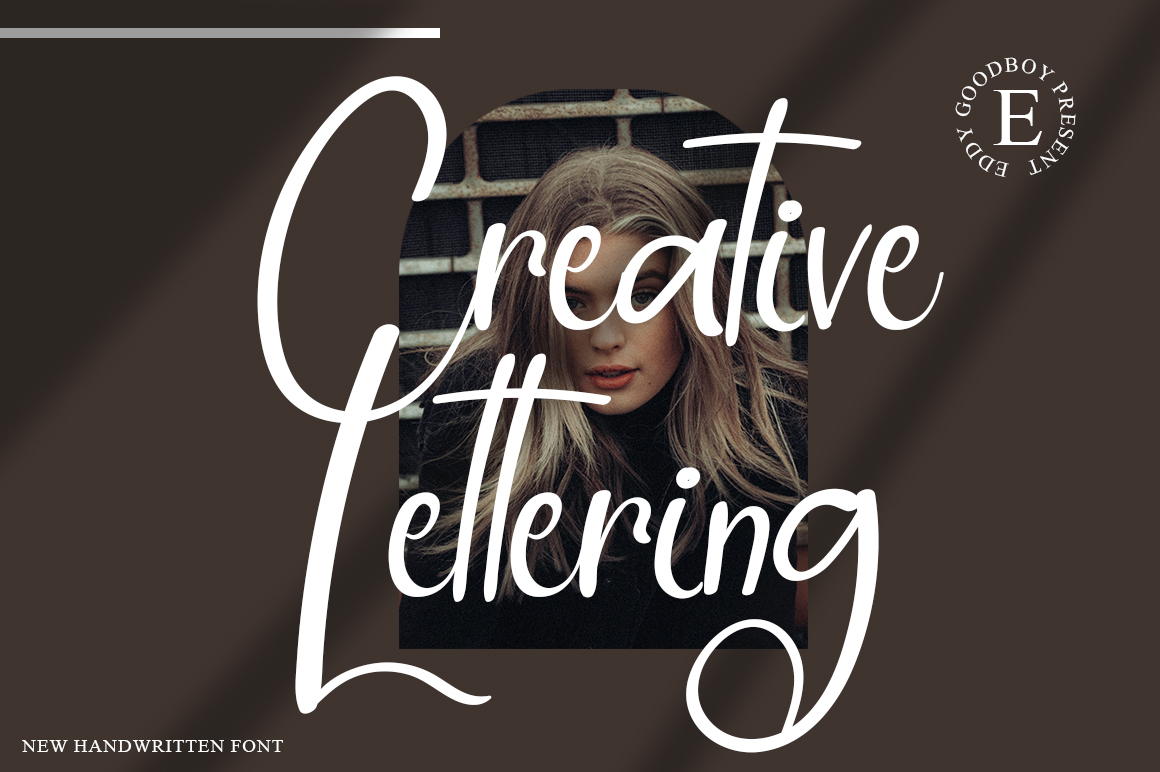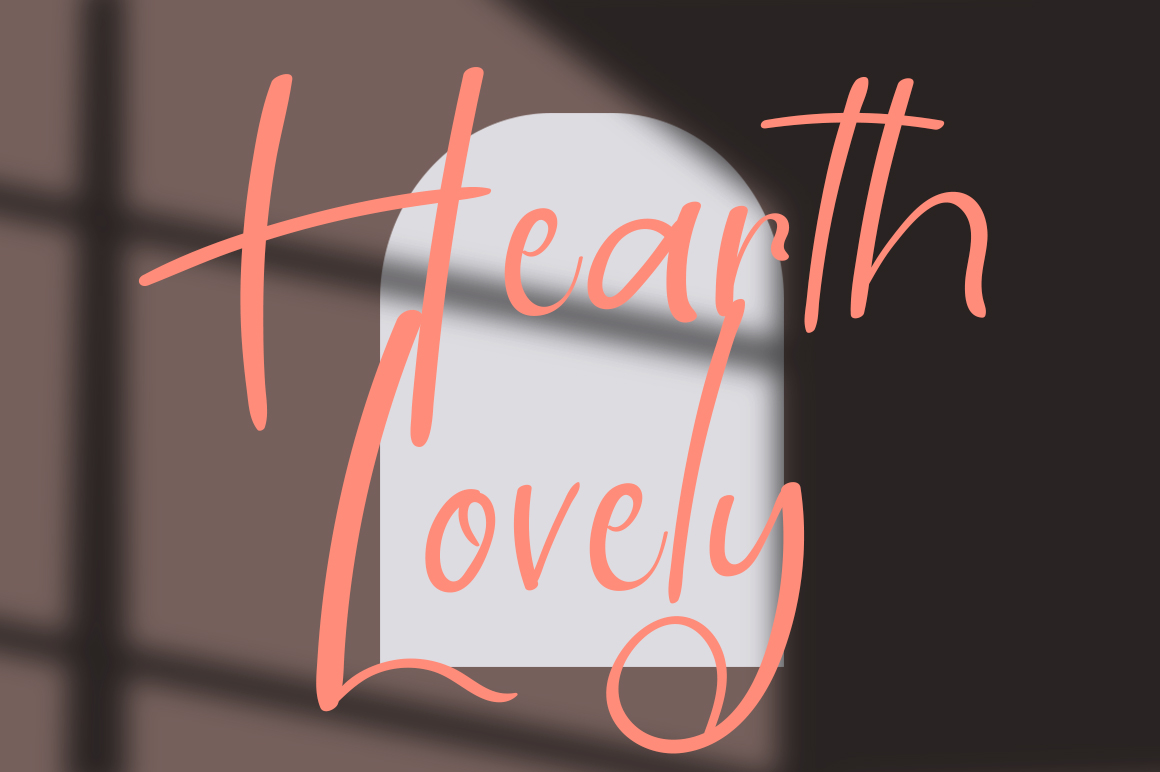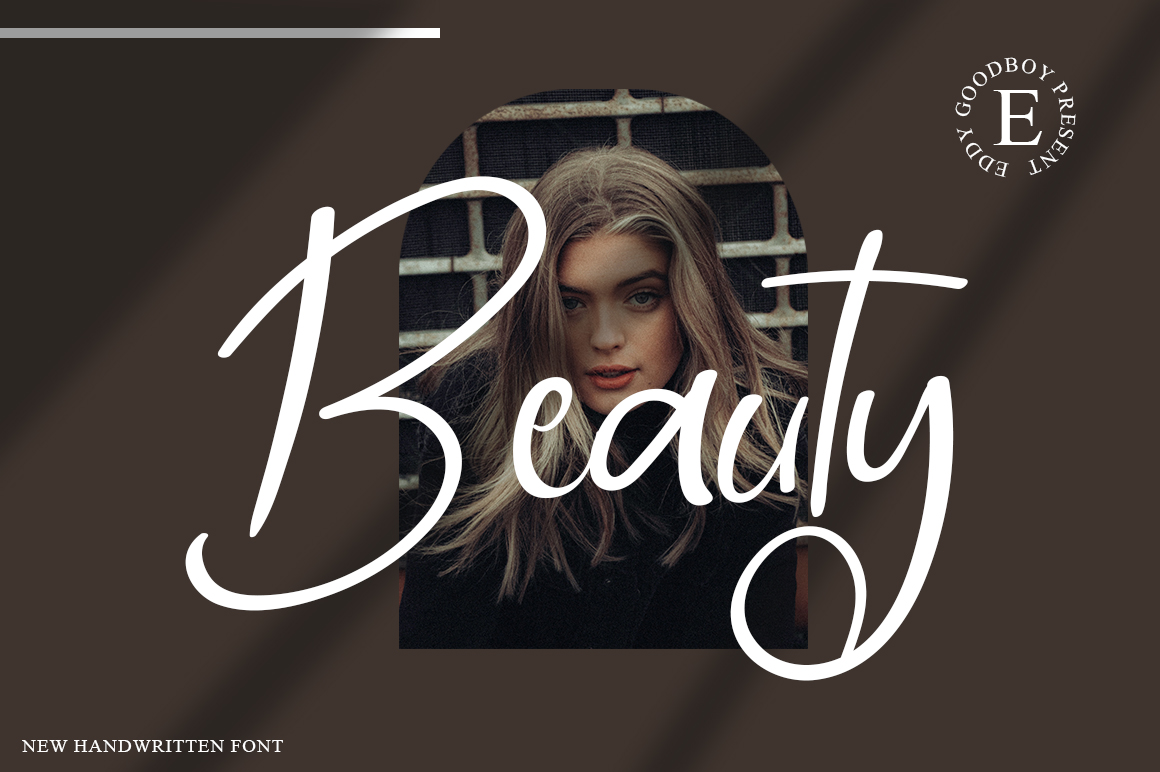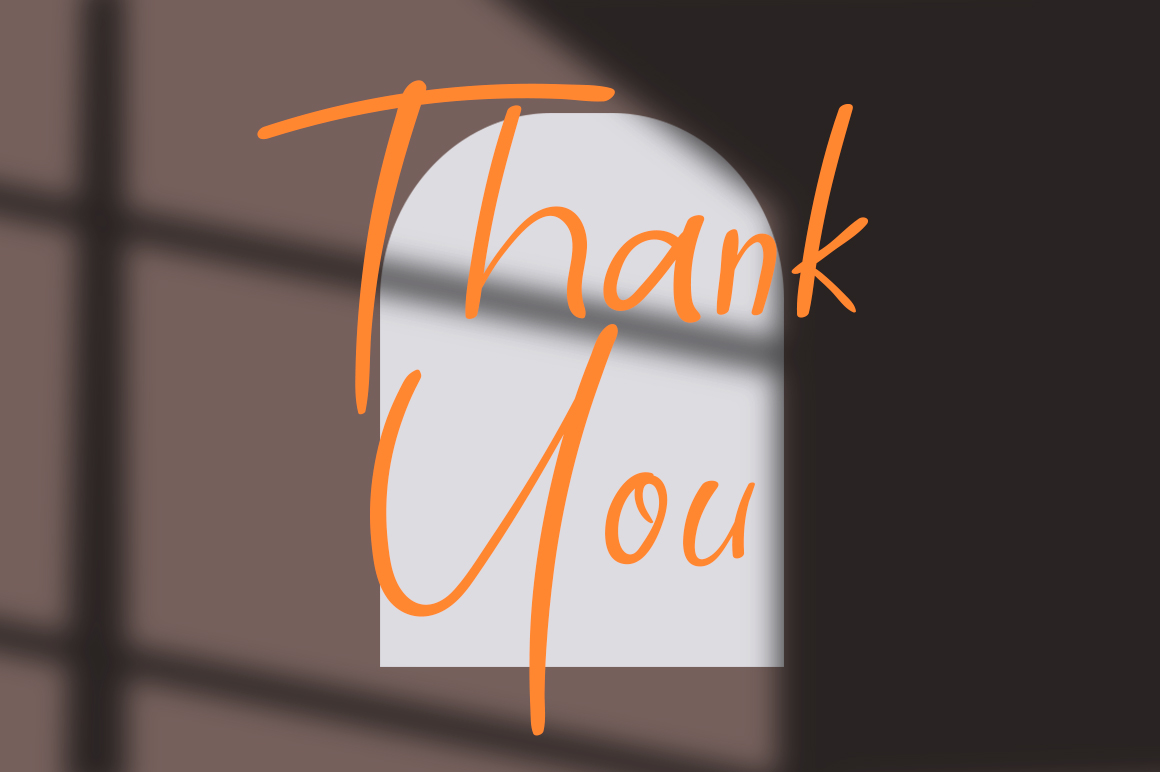
Creative Lettering Script Font
It’s a stylish and incredibly elegant script font. It looks stunning on wedding invitations, thank you cards, quotes, greeting cards, logos, business cards and every other design which needs a handwritten touch.